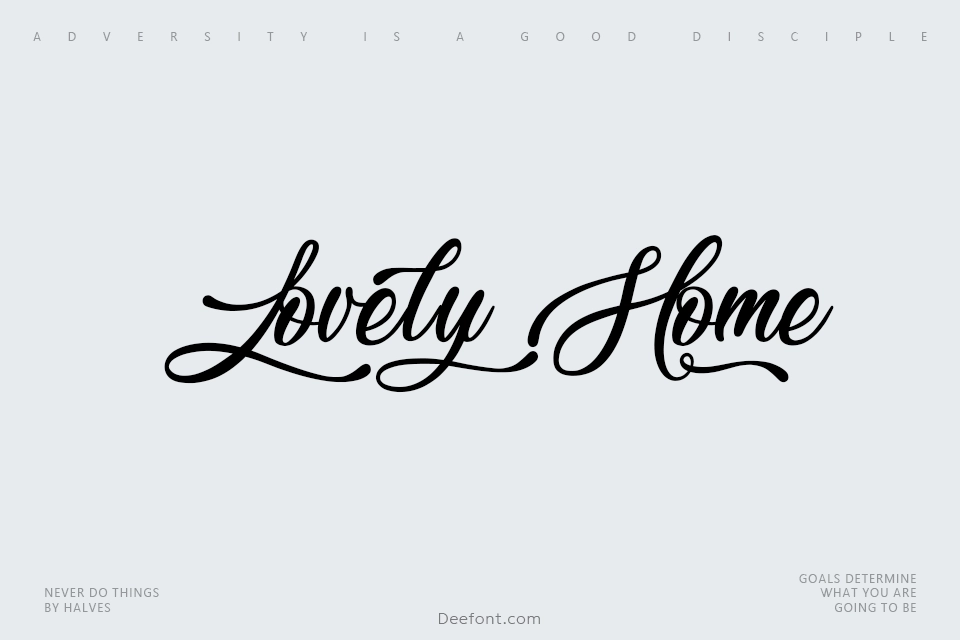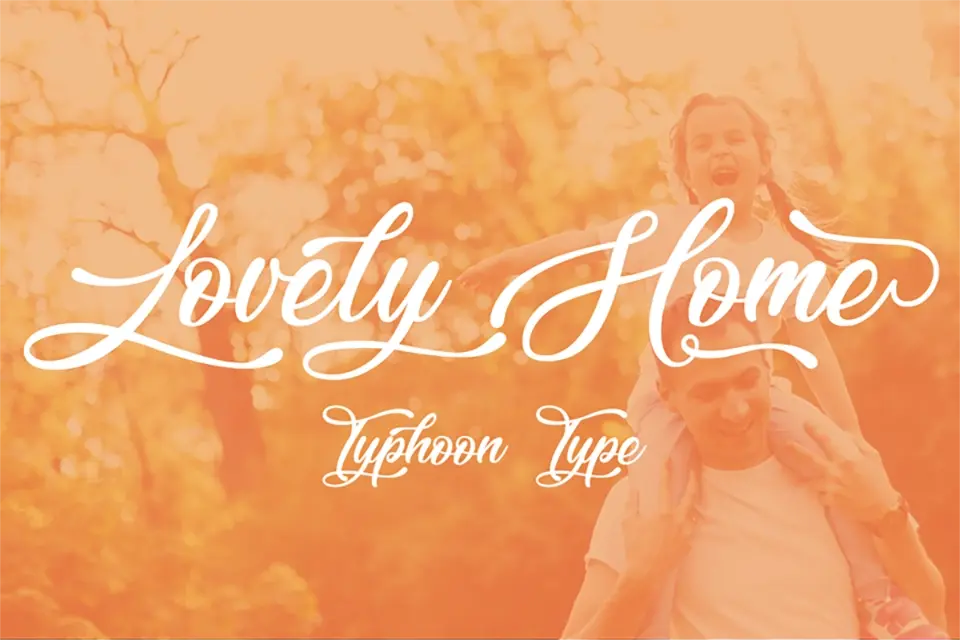
Lovely Home Font
Lovely Home is a heartwarming cursive font that brings elegance and warmth to your creative designs. This beautifully crafted script typeface features flowing letters with delicate details, making it ideal for wedding invitations, greeting cards, poster design, book covers, and personal branding projects. With its unique hand-drawn aesthetic and sophisticated charm, Lovely Home adds a touch of luxury and personality to any typographic composition, perfect for designers seeking to create memorable visual experiences.